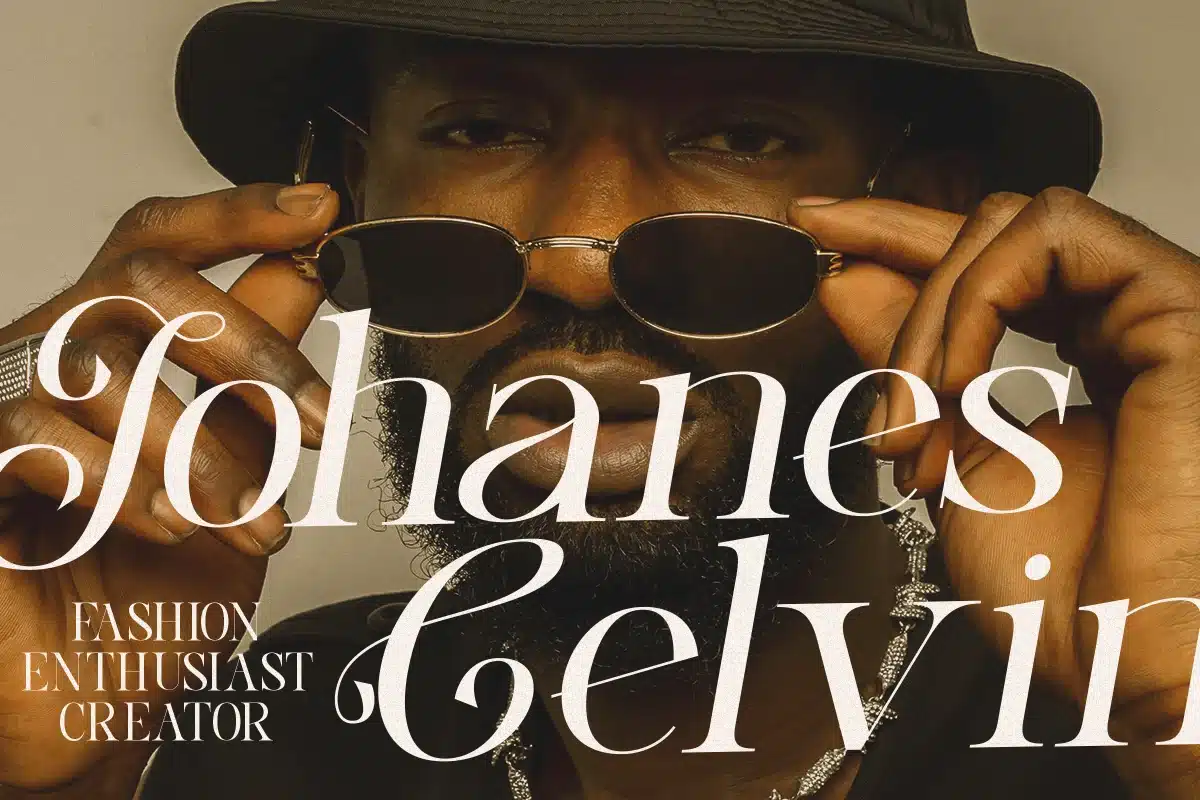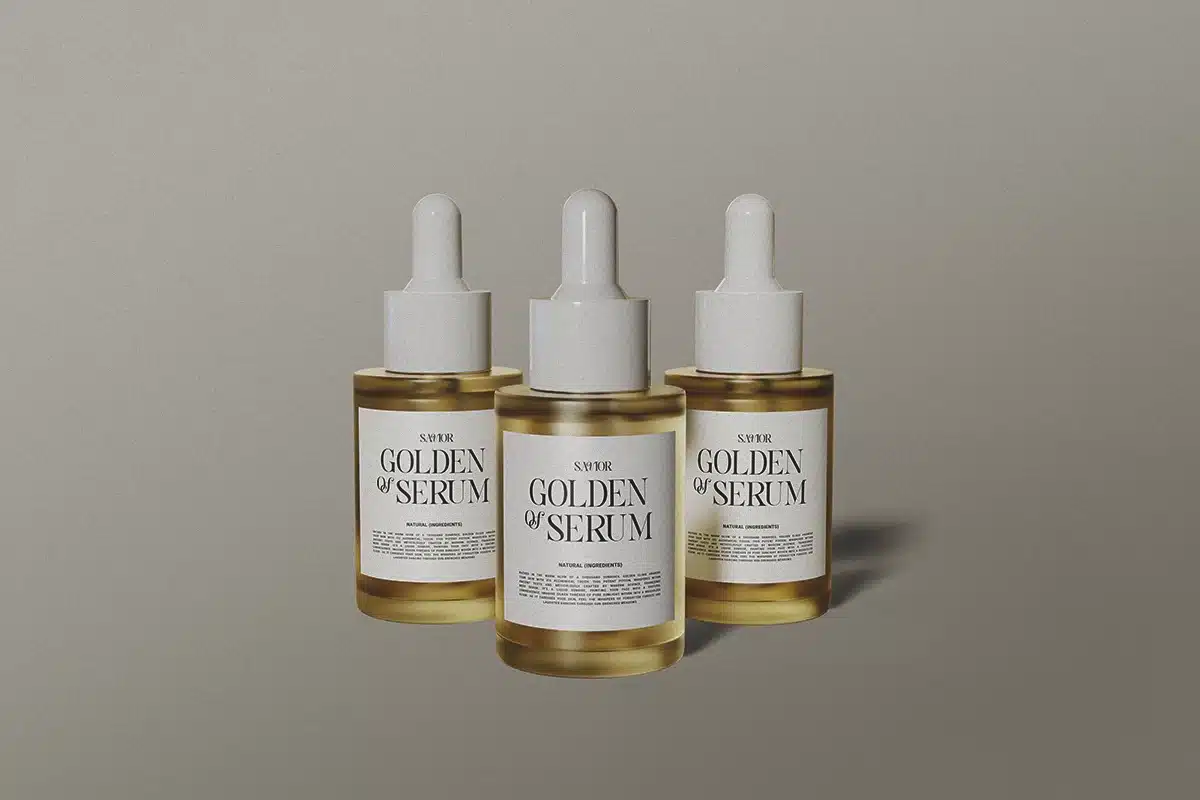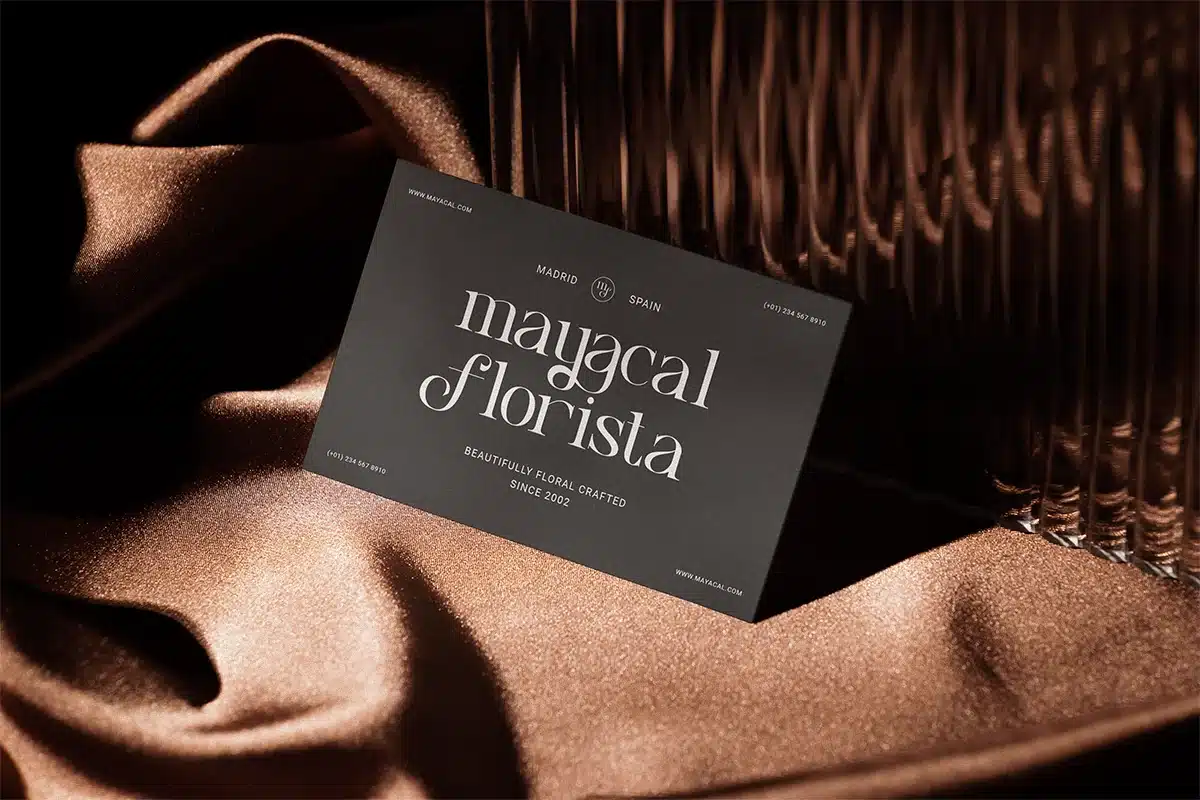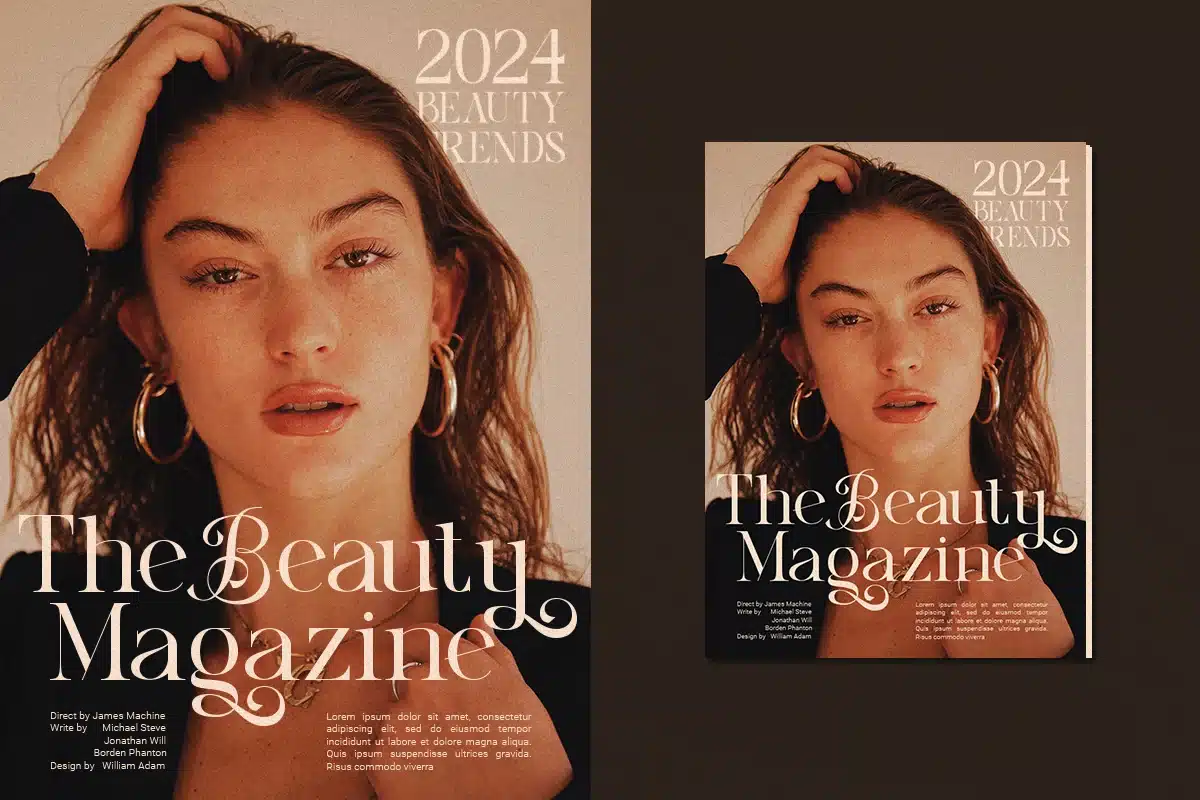
Luxe Bonanza – Elegance Modern Luxury Serif Font
Introducing Luxe Bonanza, a classic stylish serif font that exudes elegance and sophistication. Designed to elevate your typography, Luxe Bonanza is perfect for creating premium, high-end designs that demand attention.
Luxe Bonanza features unique alternates and ligatures, offering a versatile range of stylistic options to enhance your creative projects. Its refined and graceful letterforms make it ideal for various applications, from luxurious branding and cinematic posters to art deco-inspired invitations and corporate materials.
Drawing inspiration from timeless serif fonts and modern aesthetics, Luxe Bonanza seamlessly blends classic and contemporary elements. Its elegant curves and thin strokes provide a touch of sophistication, while maintaining a modern minimalistic appeal.
Whether you’re designing for love-themed projects, tropical and beach-inspired graphics, or corporate and futuristic layouts, Luxe Bonanza adds a layer of elegance and charm. Its cinematic quality and cursive touch make it suitable for a wide range of design contexts, from fancy and premium to funky and futuristic.
Luxe Bonanza is not just a font; it’s a statement of style. With its classic retro influences and modern minimalism, this serif font is perfect for creating beautiful, timeless designs that stand out. Use it for summer-themed projects, nature-inspired graphics, or any design that requires a touch of elegance and sophistication.
Experience the luxury and versatility of Luxe Bonanza, a serif font that combines classic charm with modern elegance, offering a truly unique and stylish typographic solution for all your design needs.
Luxe Bonanza Features:
- Alternates & Ligatures
- Accented characters